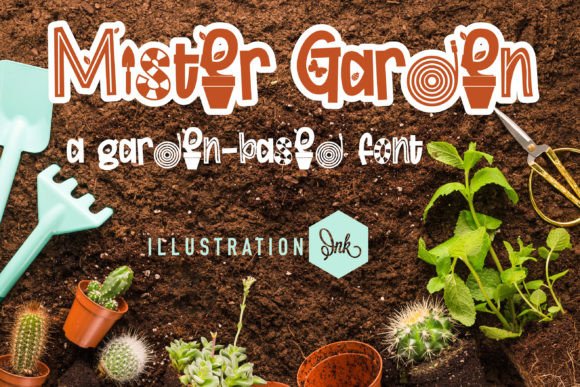
Welcome to the enchanting realm of Mister Garden Font, a text font designed with elegance and artistry that will transform your plain text into a blooming garden of words. Step into a world where typography meets nature, where every letter carries the essence of a blooming flower.
Immerse yourself in the allure of this script font, meticulously handcrafted by Illustration Ink, the visionary minds behind this masterpiece. Mister Garden Font is not just a collection of characters; it's an expression of creativity, an ode to the beauty of blooming gardens.
With its captivating hand-written sans-serif style, Mister Garden Font adds a touch of elegance and charm to your written creations. It's a font that tells a story, evoking the freshness of a morning dewdrop, the warmth of a sun-kissed petal, and the delicate beauty of blooming flowers.
Unleash your imagination and let Mister Garden Font transform your digital creations into breathtaking works of art. Imagine your social media posts adorned with the graceful curves of this font, capturing the attention of your audience like never before. Your presentations and marketing materials will come alive with a touch of elegance and sophistication, leaving a lasting impression that sets you apart.
But it's not just about aesthetics; Mister Garden Font is also incredibly versatile, adapting seamlessly to a wide range of projects. Let it adorn your wedding invitations and cards, adding a touch of romance and charm to your special day. Bring your creative projects to life, from stunning posters to eye-catching logos, with a font that speaks volumes.
Take the first step towards transforming your text into something truly extraordinary. Embrace the artistry and beauty of Mister Garden Font and watch in awe as your words blossom into a symphony of elegance. Let your creativity flourish, let your words bloom, and let Mister Garden Font be your guiding light.